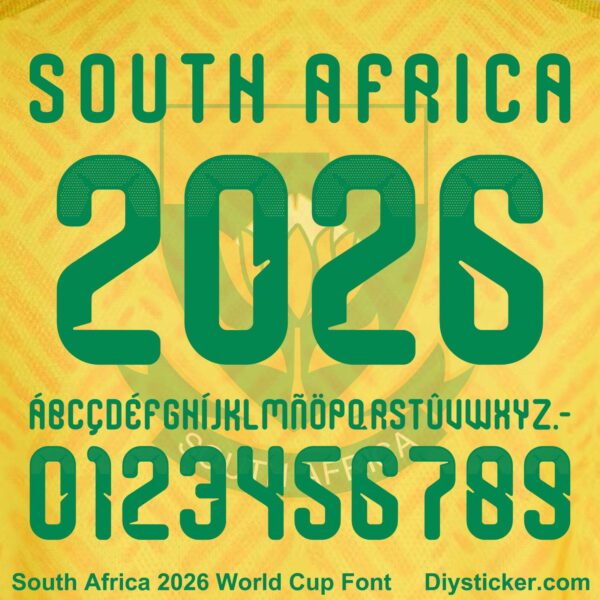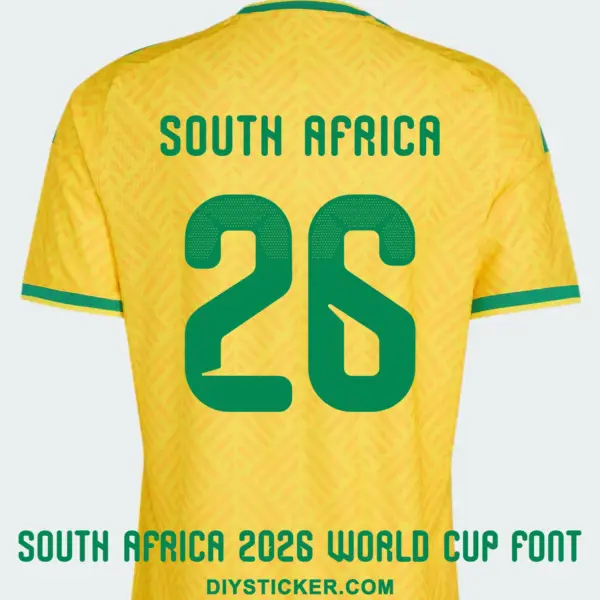
South Africa 2026 World Cup Font | Home Kit
South Africa 2026 World Cup Font Set For Home Kit
Names and Numbers: Premium National Team Customization
Upgrade your custom print production with the high-performance South Africa 2026 World Cup font and complete numbers set. Designed to perfectly replicate the distinctive national team look worn during international qualifiers and world tournament stages, this digital toolkit offers unrivaled geometric precision. Whether you are creating a custom name-set for a passionate football fan or compiling bold promotional sports signage, our vector files ensure factory-fresh alignment. Discover more iconic international tournament designs by exploring our curated World Cup Font 2026 repository.
Aesthetic Design Breakdown & Typography Engineering
The South Africa 2026 World Cup font showcases an organic, culturally inspired design that balances modern sports aesthetics with unique regional character:
Intricate Halftone Dot Gradient: The top curves of the large numbers feature a highly detailed, precision-engineered halftone dot pattern gradient. This dot texture smoothly transitions into the solid color below, adding a modern, breathable, and dynamic texture to the print.
Sharp Internal Thorn Cutouts: The numeric characters feature clean, organic triangular “thorn” or spike cutouts along the inside paths (as seen on digits like 2, 3, 6, and 8). This sharp architectural accent breaks up the solid strokes, referencing traditional local design motifs.
Rounded Exterior Corners: To balance the sharp internal accents, the outer frames are built with soft, fluidly rounded corners, ensuring a clean and legible appearance even from a distance across the pitch.
Vibrant Deep Green Palette: Colored in the nation’s iconic rich green, this font profile provides an exceptional visual contrast when pressed onto the traditional radiant yellow home jersey.